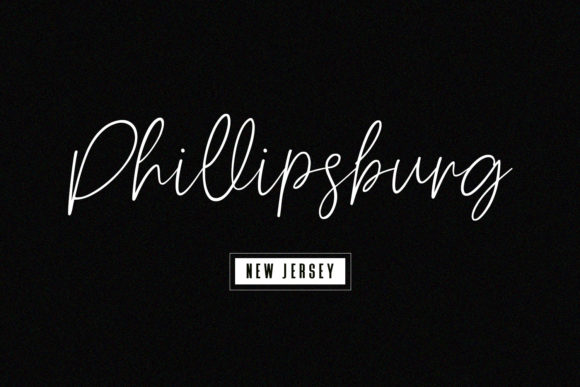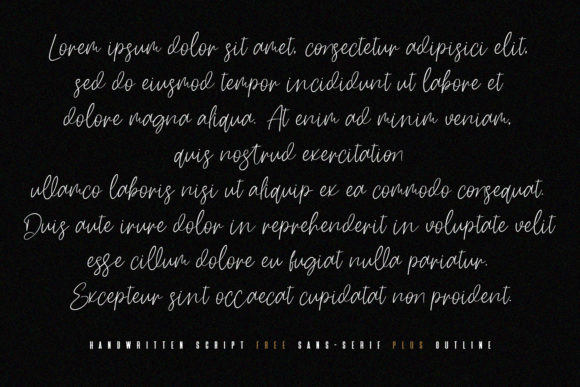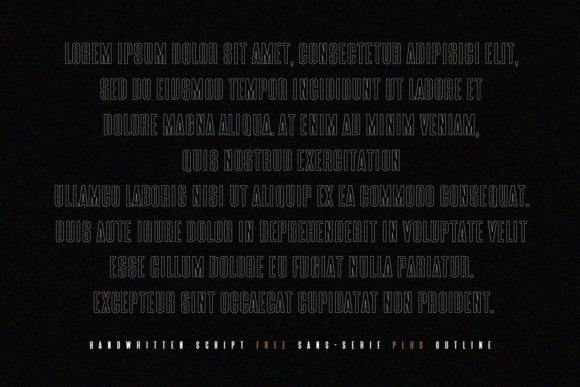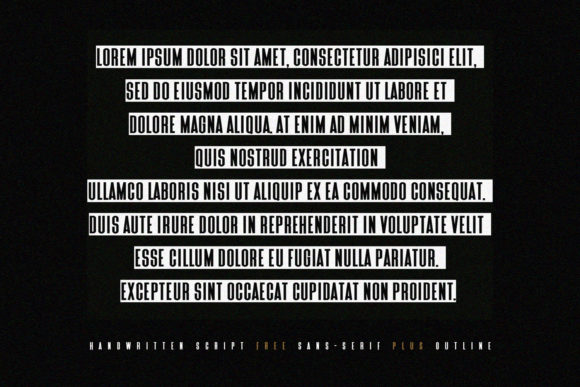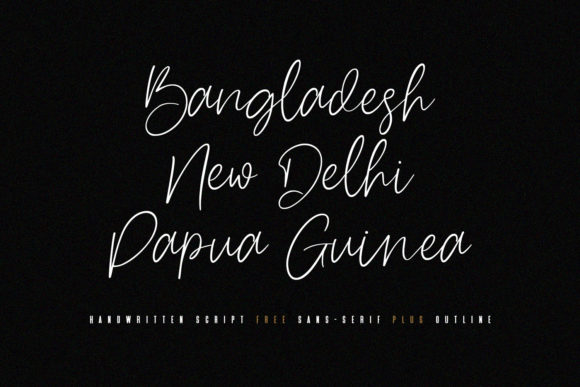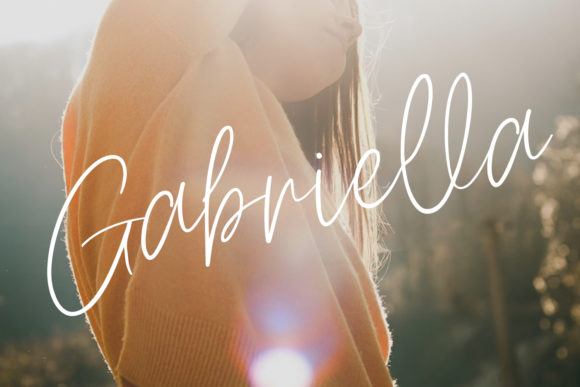
Bittods Duo Font: The Ultimate Combination for Exquisite Designs
In the world of typography, finding the perfect font combination can elevate your design from ordinary to extraordinary. Bittods Duo Font is a match made in heaven, pairing the authentic letters of a script font with the clean lines of a sans serif font. This versatile duo is designed to give your designs an exquisite and sophisticated feel, making it perfect for a wide range of applications.
The Perfect Pairing: Script and Sans Serif
Bittods Duo Font combines two distinct font styles that complement each other perfectly. The script font brings a touch of elegance and sophistication, while the sans serif font adds a modern and clean touch. This combination creates a beautiful visual contrast that adds depth and interest to any design.
The authentic letters of the script font are carefully crafted to add a personal touch to your designs. The flowing lines and curves of the script font evoke a sense of creativity and luxury, making it perfect for high-end branding, packaging, and advertising designs.
On the other hand, the sans serif font provides a clean and modern contrast to the script font. Its simple and straightforward design makes it easy to read and understand, making it perfect for body text and other applications where clarity is essential.
The versatility of Bittods Duo Font is one of its most significant advantages. This font combination can be used in a wide variety of applications, from branding and packaging to arts and crafts projects. The only limit is your imagination!
For designers, Bittods Duo Font offers endless possibilities for creative expression. Use the script font to create stunning headlines and titles, while the sans serif font provides a clean and modern look for body text. The combination is perfect for:
- Branding: Create a luxurious and sophisticated brand identity with Bittods Duo Font.
- Packaging: Add a touch of elegance to your packaging designs with this versatile font combination.
- Advertising: Use Bittods Duo Font to create eye-catching ads that grab attention and leave a lasting impression.
- Arts and Crafts: Add a personal touch to your arts and crafts projects with this beautiful font combination.
Why Choose Bittods Duo Font?
- Unique and Versatile: Bittods Duo Font offers a unique and versatile combination of script and sans serif fonts.
- Elegant and Sophisticated: This font combination adds an elegant and sophisticated touch to any design.
- Easy to Read: The sans serif font provides a clean and modern look that is easy to read and understand.
- Endless Design Possibilities: Bittods Duo Font can be used in a wide range of applications, from branding and packaging to arts and crafts projects.
In conclusion, Bittods Duo Font is a match made in heaven for designers and crafters looking to elevate their designs. This versatile font combination offers a unique and elegant way to add a touch of sophistication to any project. With its endless design possibilities and easy-to-read design, Bittods Duo Font is the perfect choice for anyone looking to create exquisite and sophisticated designs.